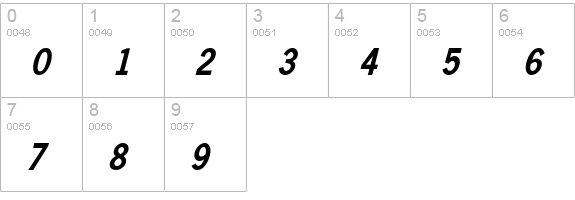
NewsGothicCndOb Font Details
NewsGothicCndOb is a versatile and modern typeface that exudes sophistication and professionalism. With its clean lines and sharp edges, this font is perfect for conveying a sense of authority and credibility in any design project. The condensed style adds a sleek and streamlined look to the text, making it ideal for headlines and titles. The best part about NewsGothicCndOb is that it is available for free download at FontsMarket.com. This means that you can easily access this high-quality font without any cost, making it a valuable resource for designers, students, and anyone looking to enhance their projects with a touch of elegance. Whether you're creating a website, designing a poster, or crafting a logo, NewsGothicCndOb is a reliable choice that will elevate your work to the next level. Download this font today and experience the power of premium typography at no cost.